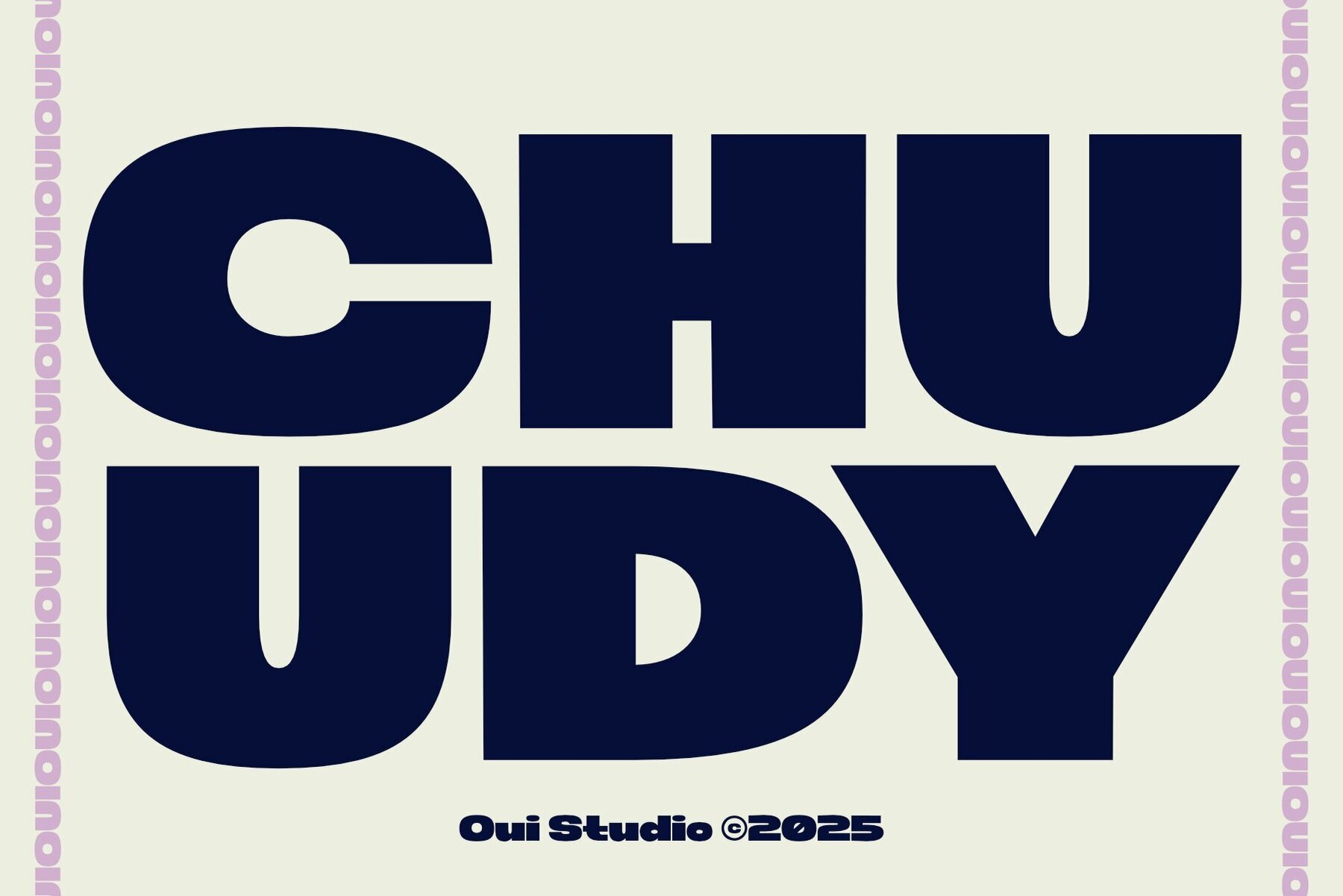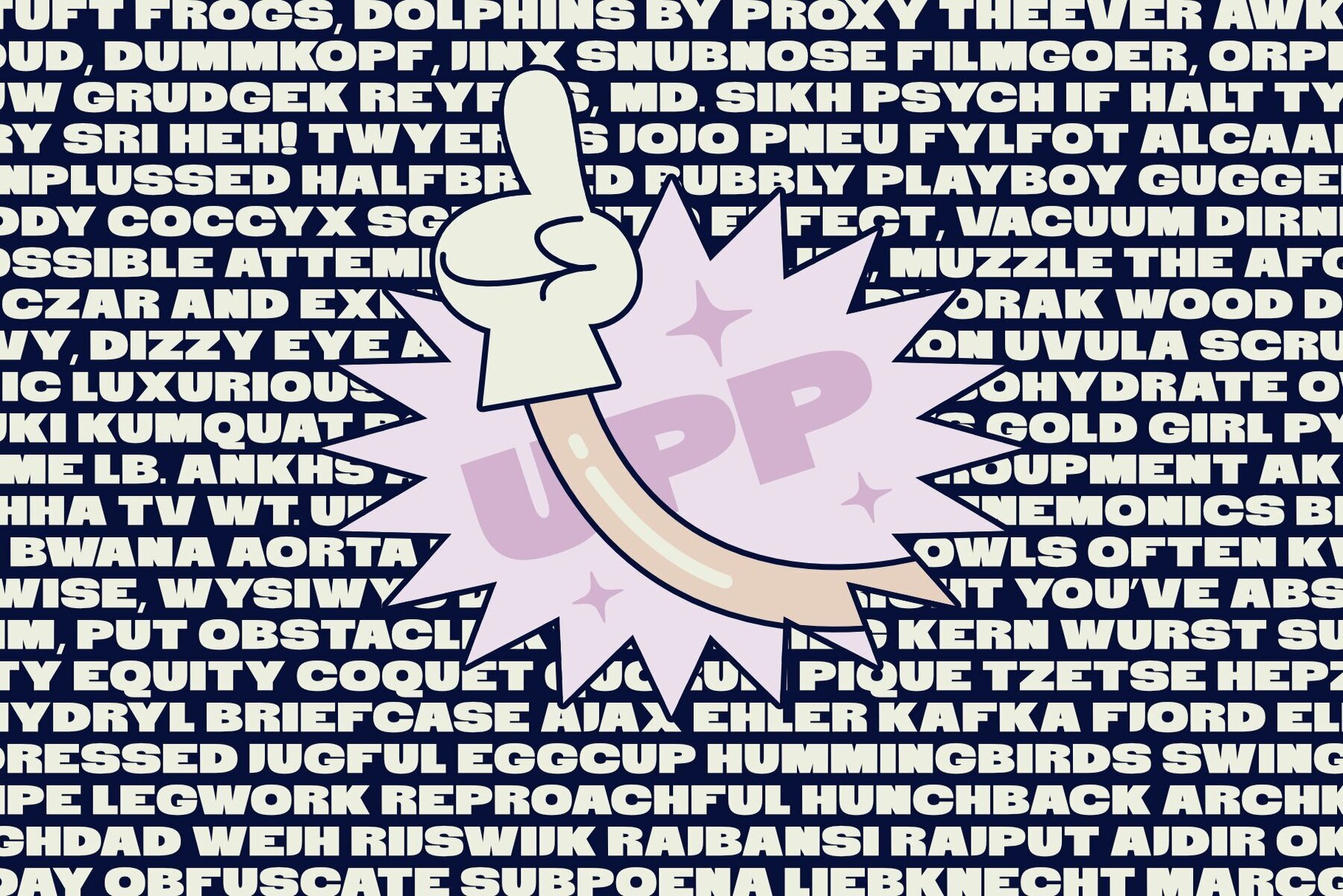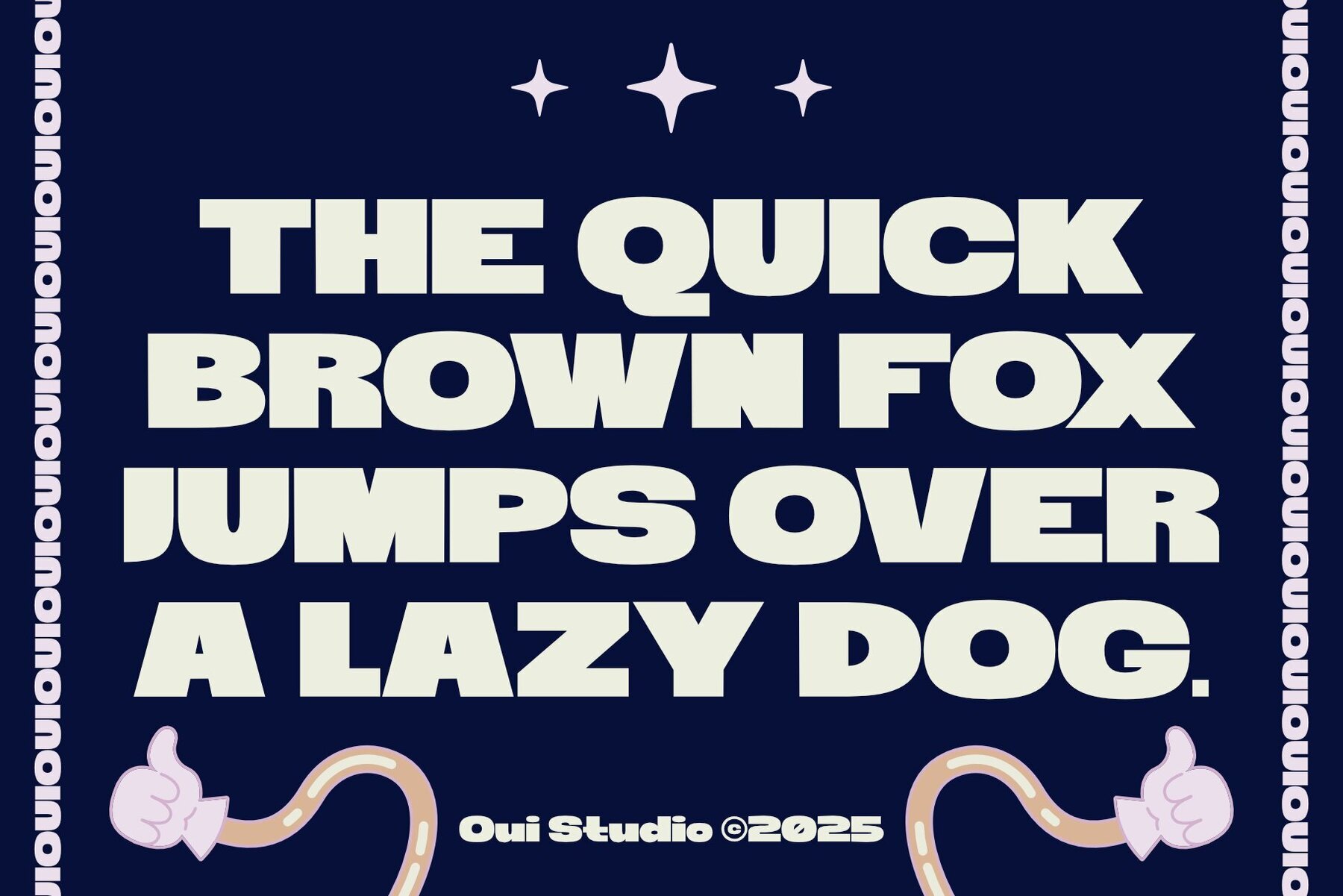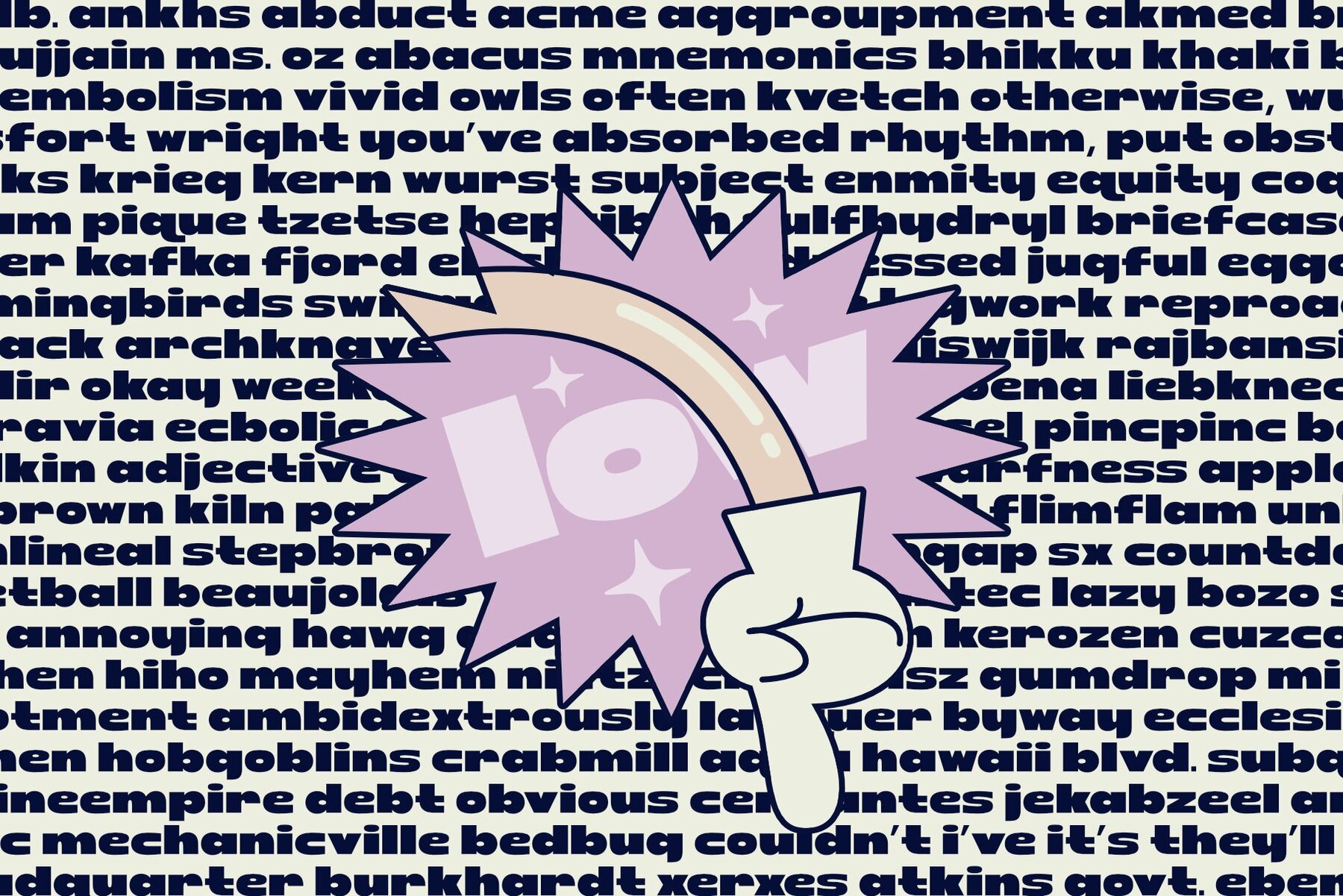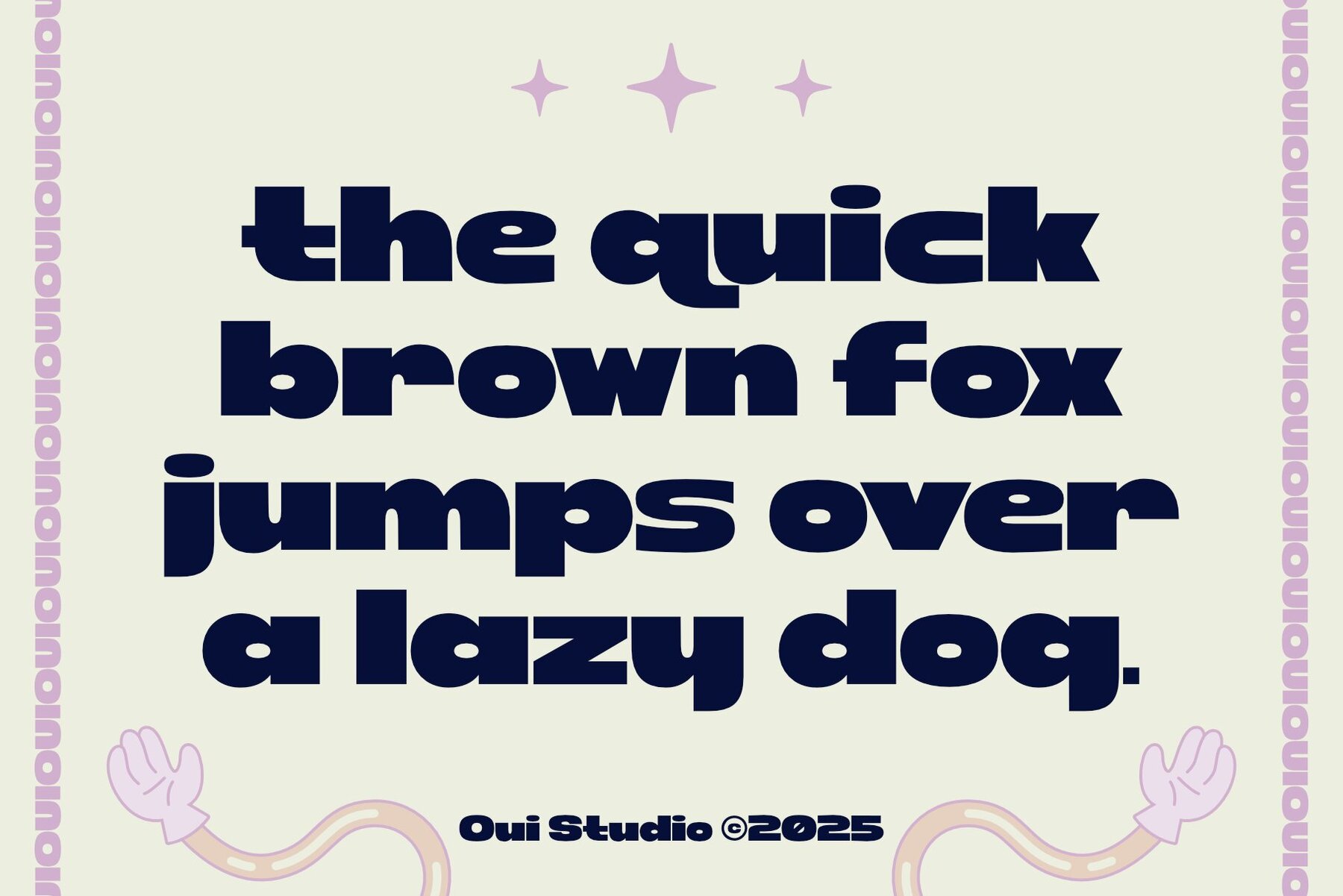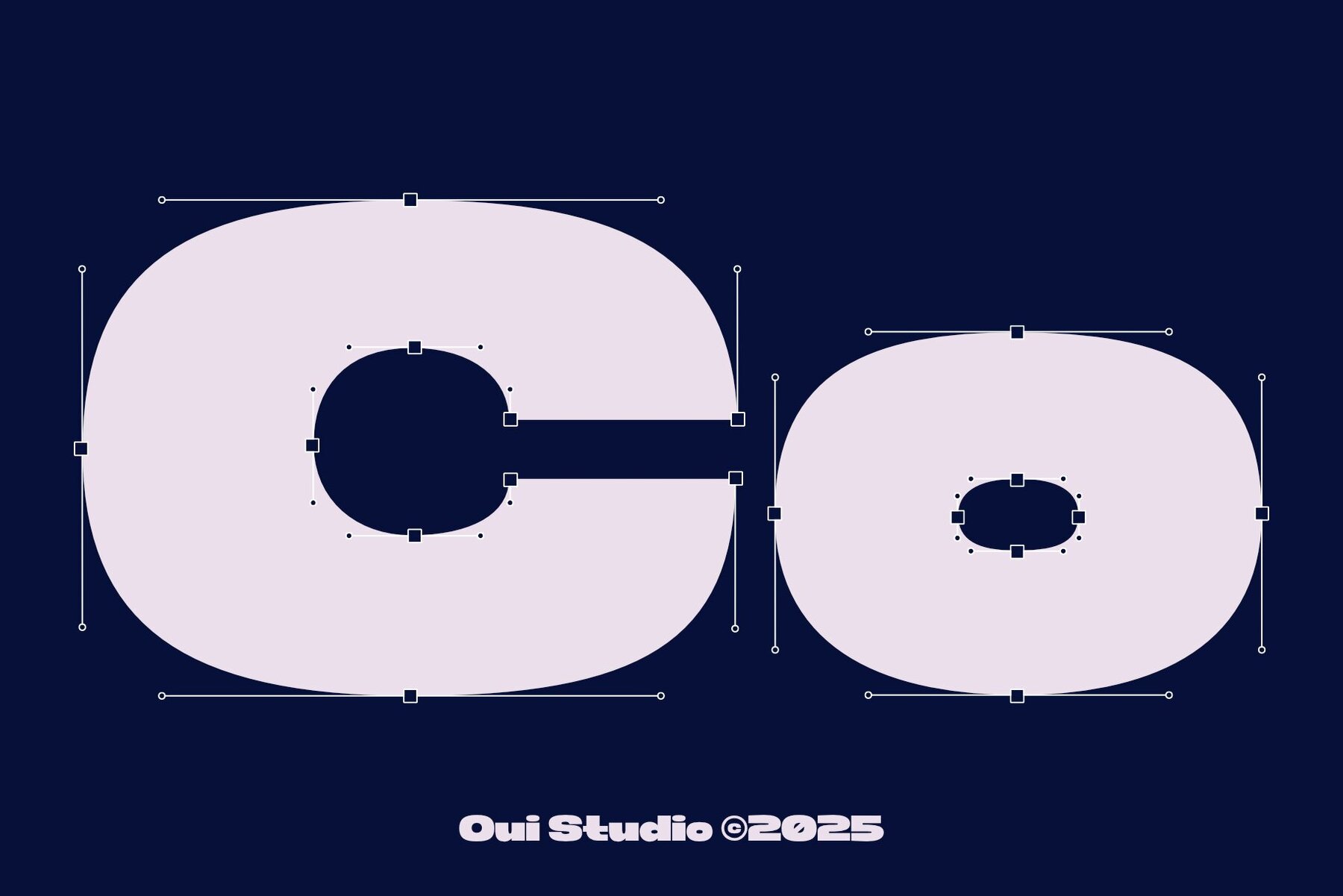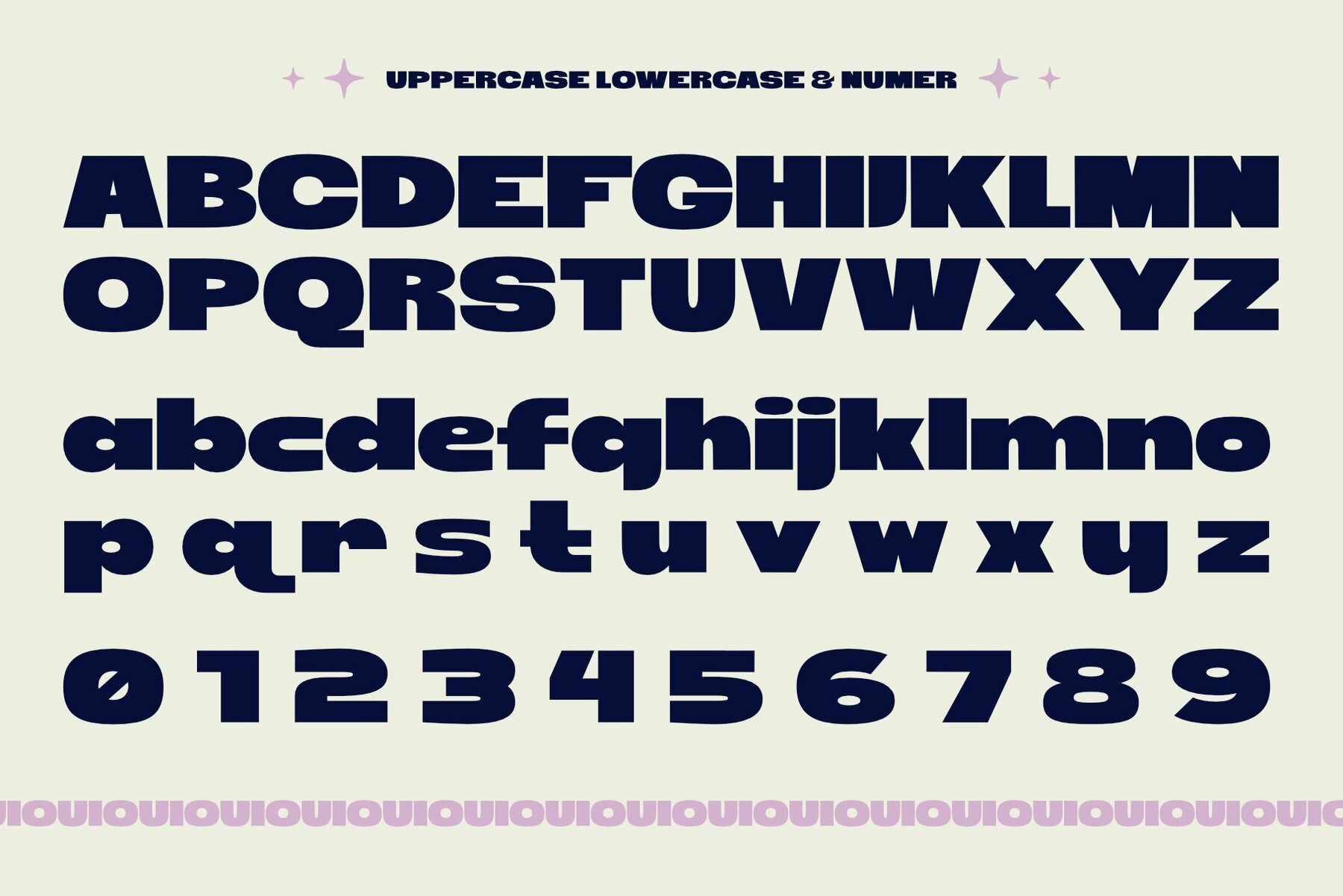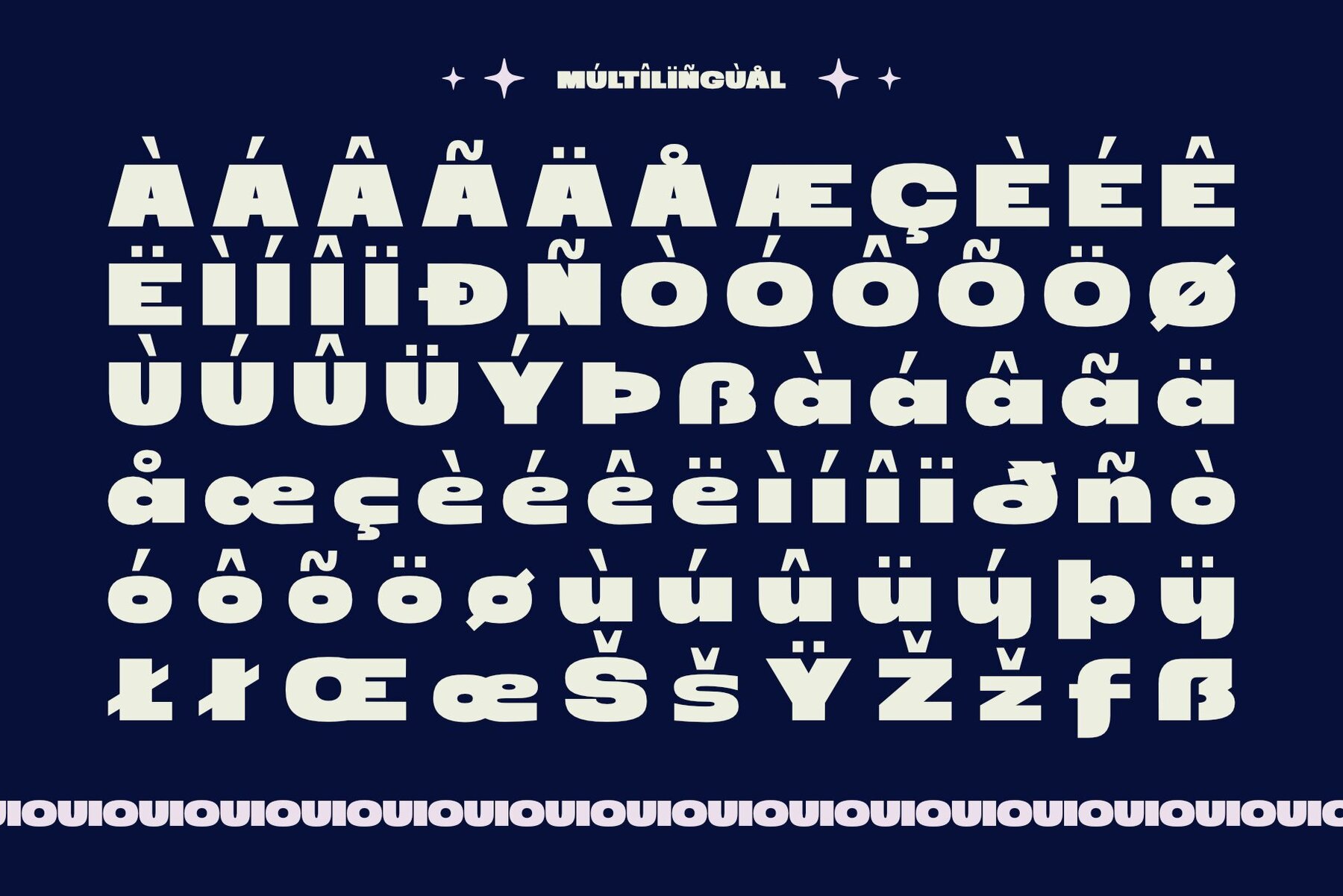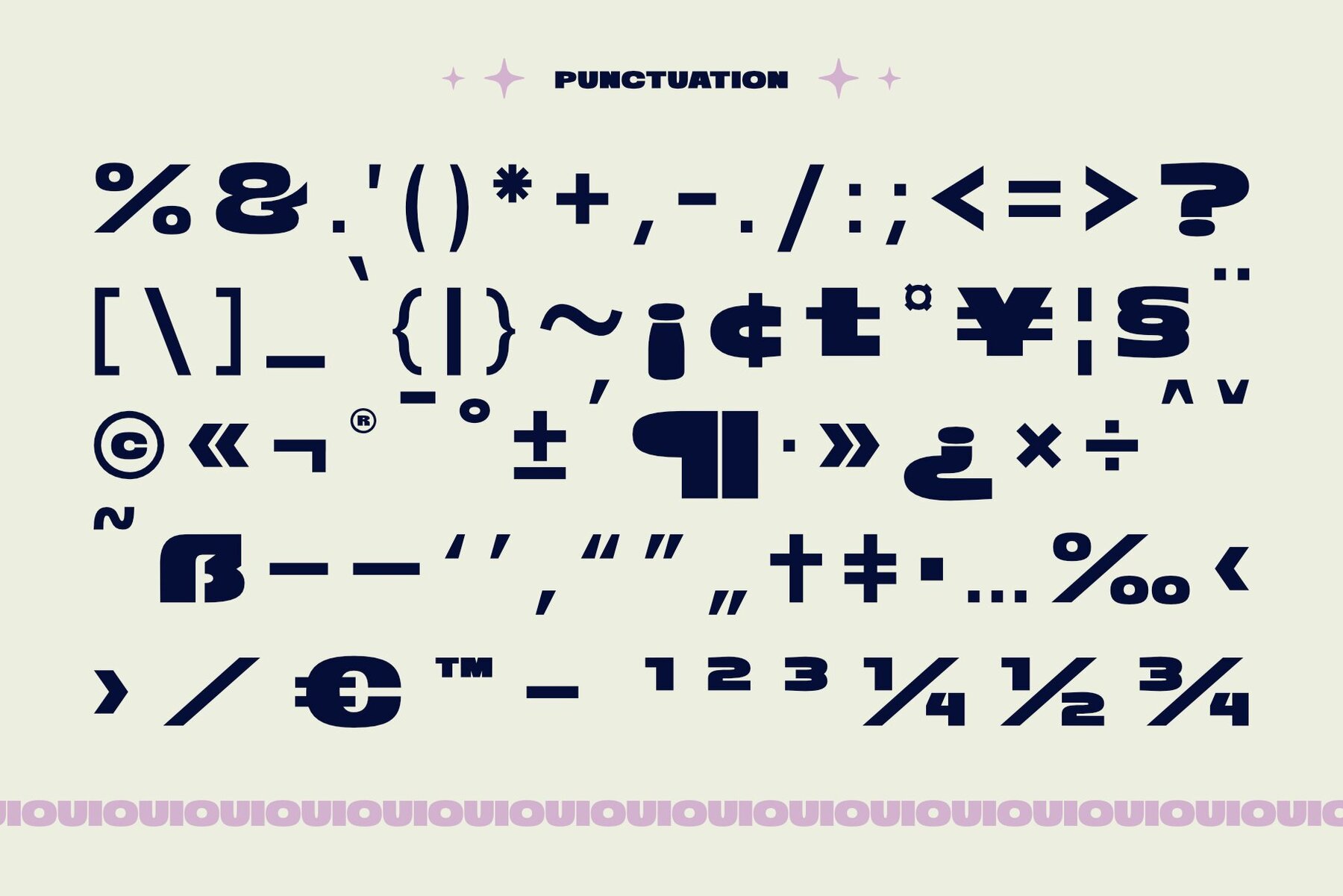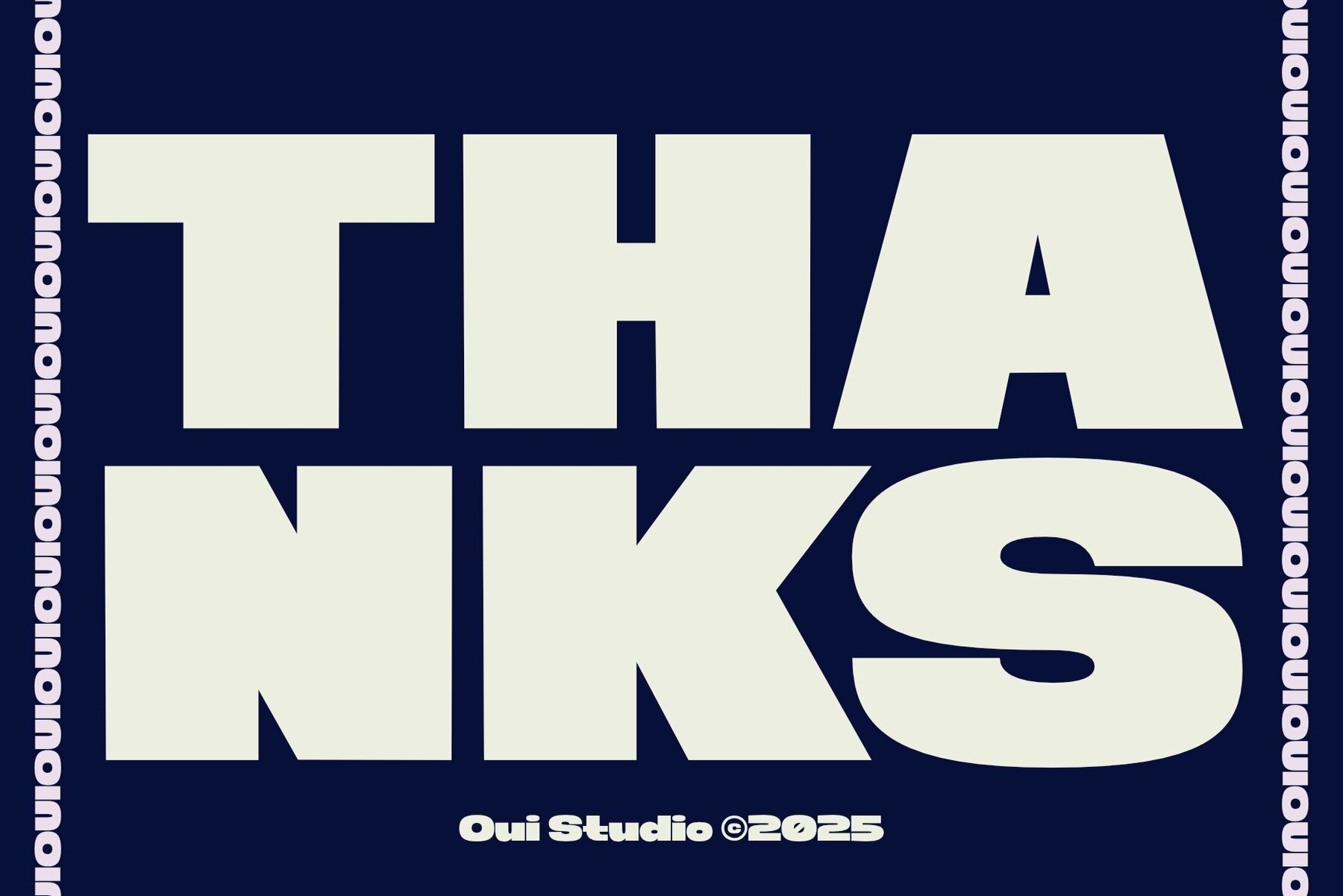
Oui Chuudy Font
Oui Chuudy
Oui Chuudy offers a bold, modern approach to display typography, balancing retro influences with crisp, contemporary design. Its substantial letterforms, gentle curves, and well-proportioned shapes create visual presence and character in projects ranging from posters and packaging to branding and editorial work. The font’s confident personality remains approachable, making it suitable for designers seeking distinctive yet welcoming typography. Designed for versatility, Oui Chuudy adapts seamlessly to both digital and print media. Its geometric consistency, combined with strong weight, results in text that draws attention while maintaining a friendly tone. Use it for impactful headlines, logos, social posts, or merchandise, where clarity and individuality are essential.Oui Chuudy: Bold Display Font with Retro Flair